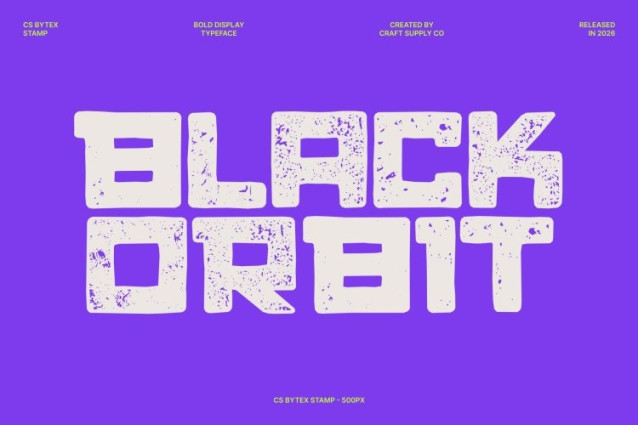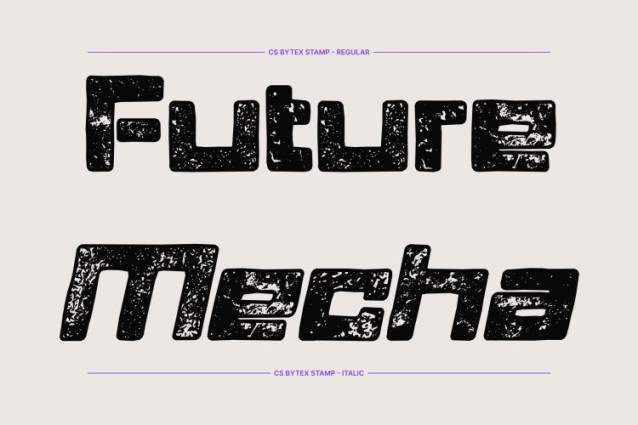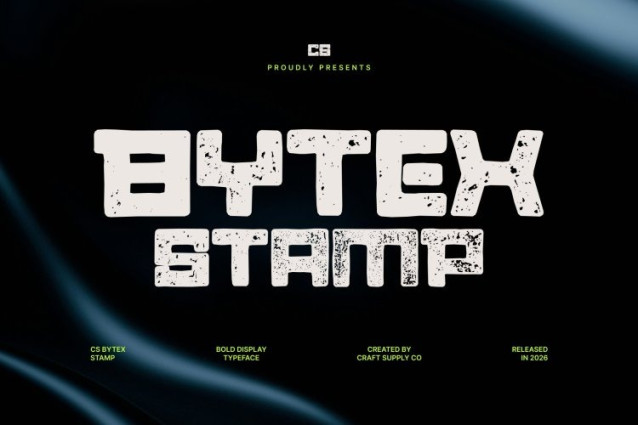
CS Bytex Stamp Font
CS Bytex Stamp Font is a bold, techno-inspired sans serif font reimagined with a vintage stamp effect. Its sharp geometry and precise contours are combined with subtle distressed textures, giving each letter the look of aged ink on paper. This creates a tactile, artisanal quality while maintaining the font’s modern, high-tech energy.
Dynamic Forms with Artistic Texture
The stamp treatment adds slight imperfections, rough edges, and ink-inspired marks that lend authenticity and visual depth. Each character feels alive retaining the confident, structured design of a digital-era font but softened with vintage personality. It’s a striking balance of futuristic precision and handcrafted charm.
Ideal for Bold, Creative, and Retro-Modern Projects
This is perfect for projects that require impact with a touch of nostalgia. Use it for branding, posters, album covers, tech campaigns with retro flair, or any composition where a strong, textured display font can make a statement. Its combination of modern sharpness and stamp-inspired artistry ensures every design stands out with personality and authority.
Strength, Precision, and Vintage Personality
This font transforms bold, futuristic typography into a visual statement that feels both contemporary and timeless. The distressed, textured stamp effect gives your layouts character while keeping this font’s powerful, forward-looking identity intact perfect for designers who want modernity with a handcrafted, artistic edge.